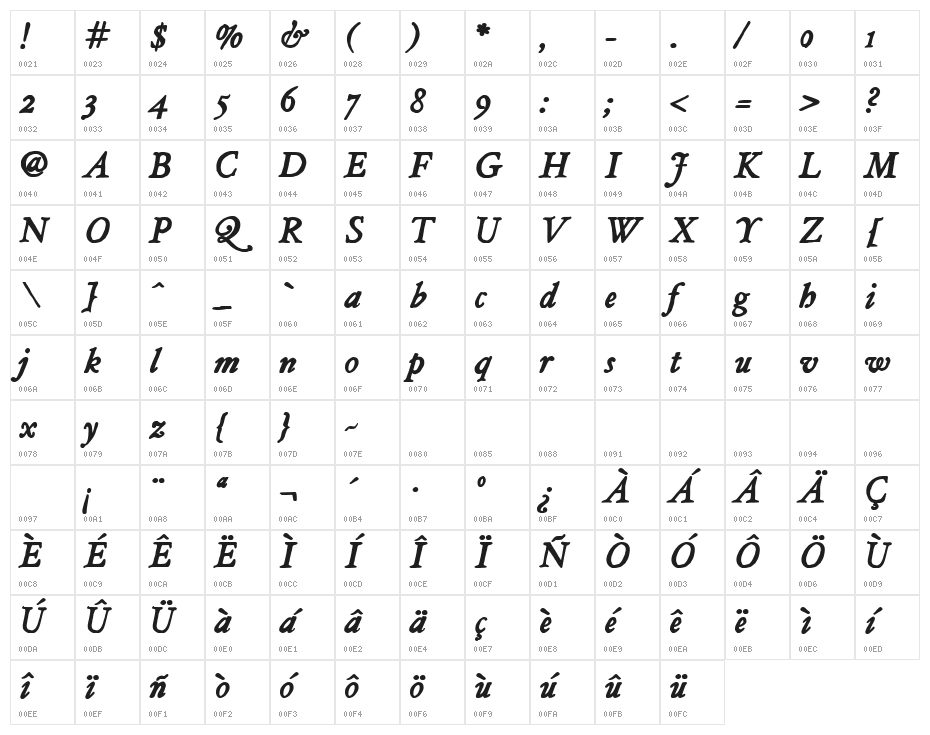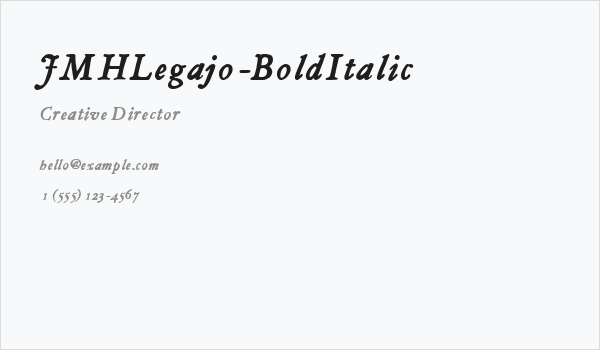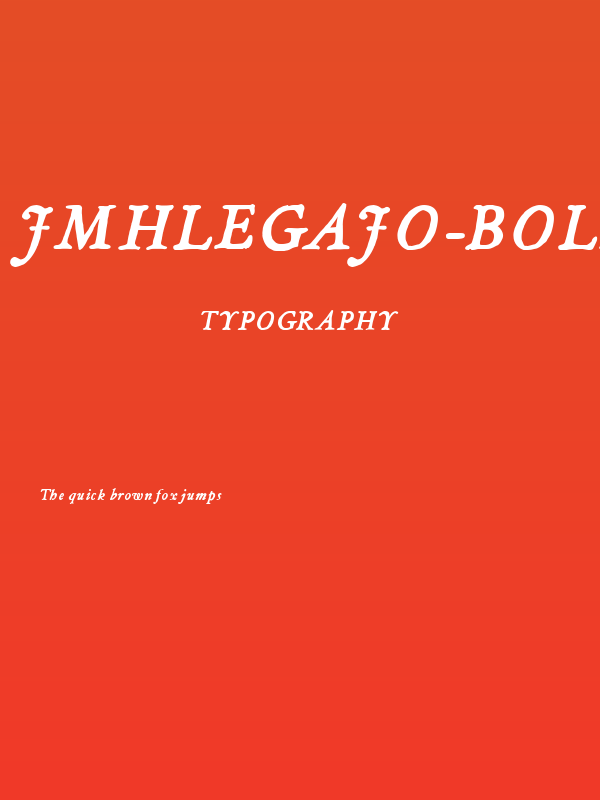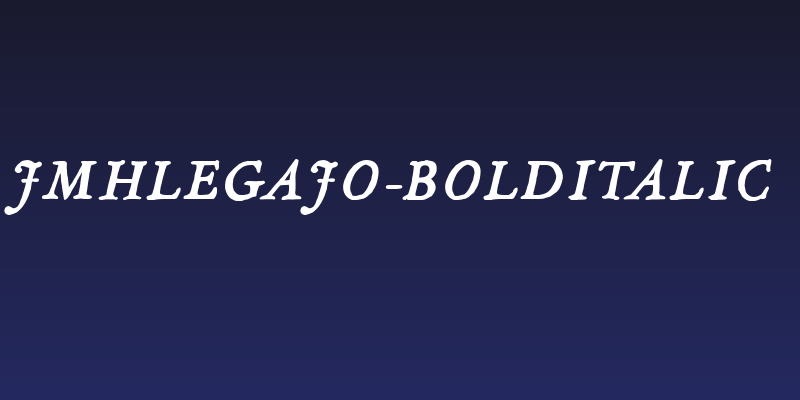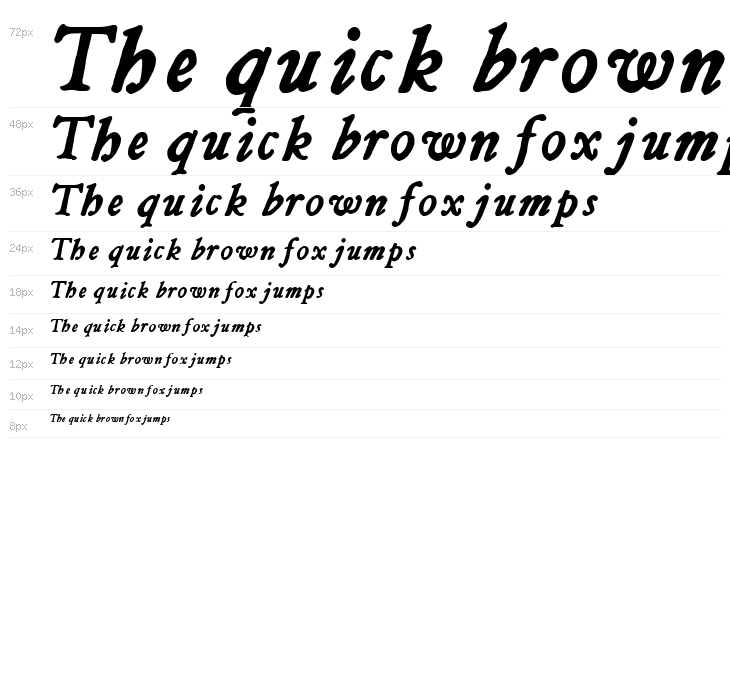
JMHLegajo-BoldItalic Font
JMHLegajo-BoldItalic Description
This font exhibits a bold and italic style, characterized by its dynamic and flowing letterforms. The uppercase letters are elegantly slanted, with a consistent stroke weight that adds to its bold appearance. The lowercase letters maintain a similar slant, with some characters featuring distinctive loops and curves that enhance its decorative nature. The numerals are bold and slightly condensed, ensuring readability while maintaining the overall aesthetic. Special characters are designed with flair, incorporating the same bold and italicized style. The font's cohesive design makes it suitable for projects that require a touch of elegance and emphasis.
| Proposed Projects | Ideal for branding, headlines, invitations, and any project requiring a bold, elegant touch. |